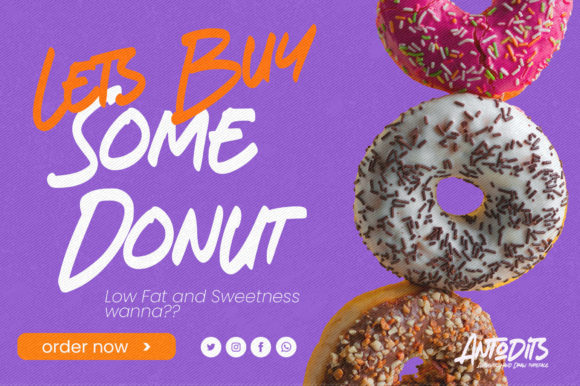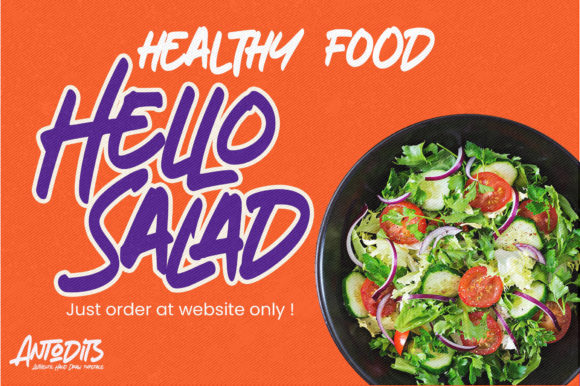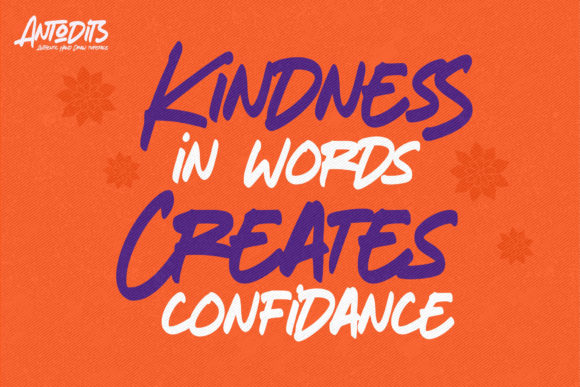
About Antodits Font
Antodits is an authentic handwritten font featuring classy characters and a lovely signature style. It is great for creative projects such as watermarks, photography, logos & branding, invitations, advertisements, product designs, stationery, wedding designs, labels, product packaging, special events, and so much more!